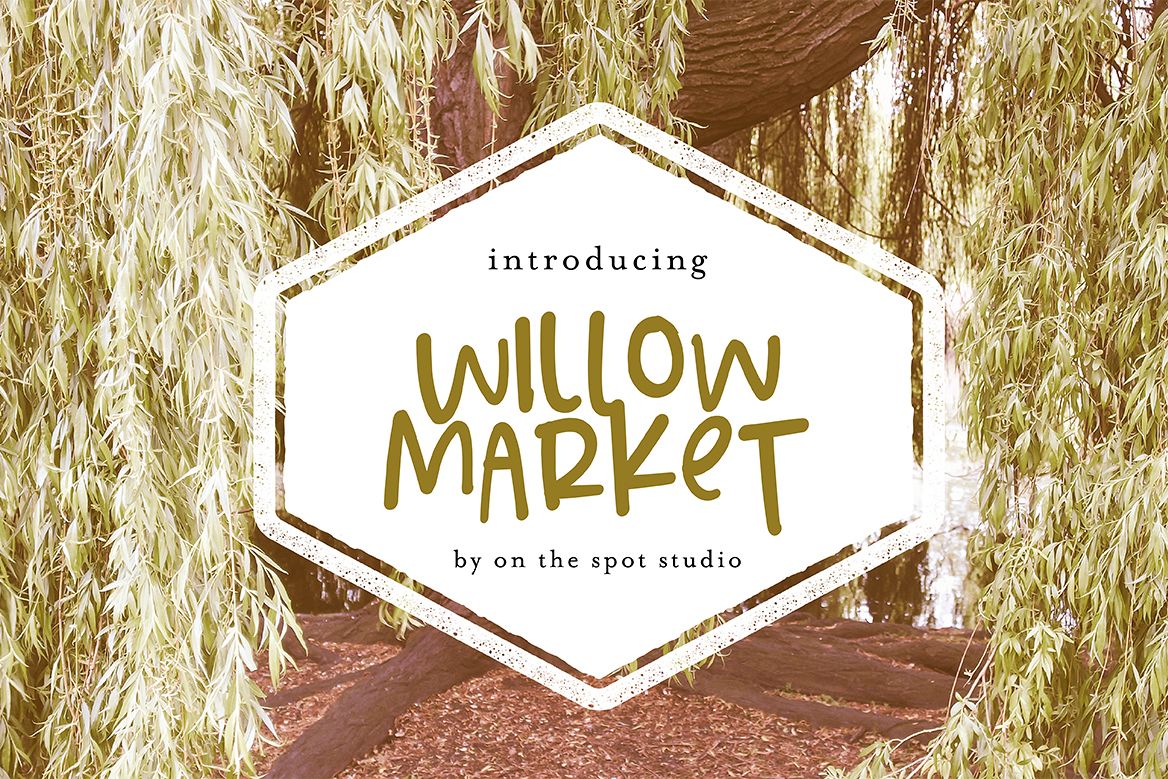
Willow Market + BONUS Script
A combination font with quirky quick print paired with jotted down script, Willow Market is perfect for branding, crafting & so much more!
On The Spot Studio
Willow Market + BONUS Script
By On The Spot Studio